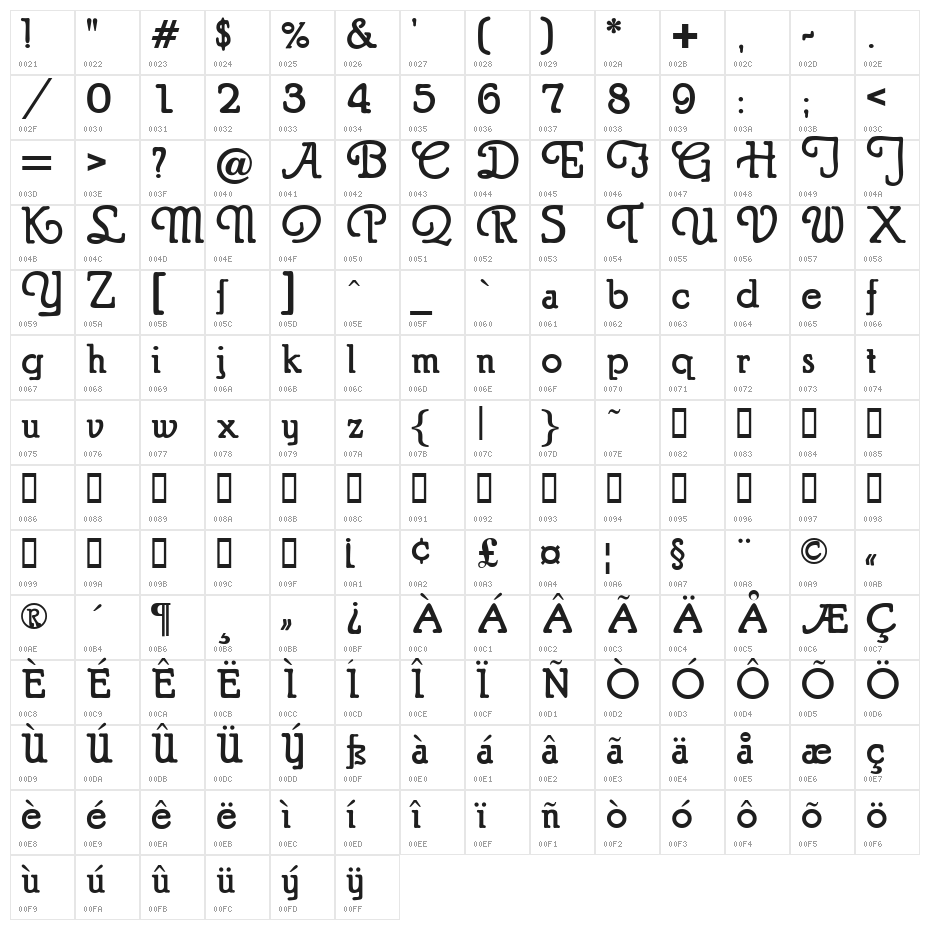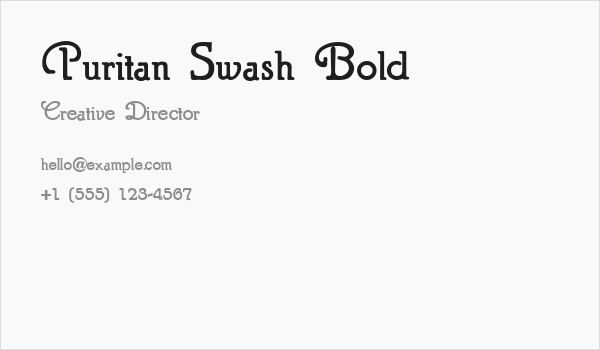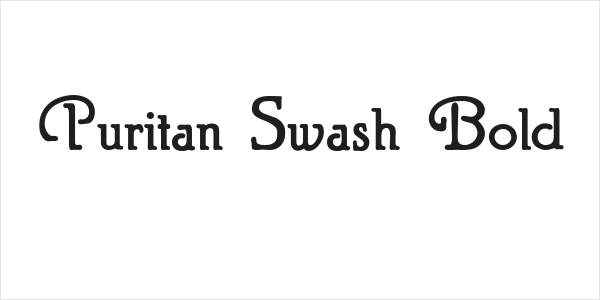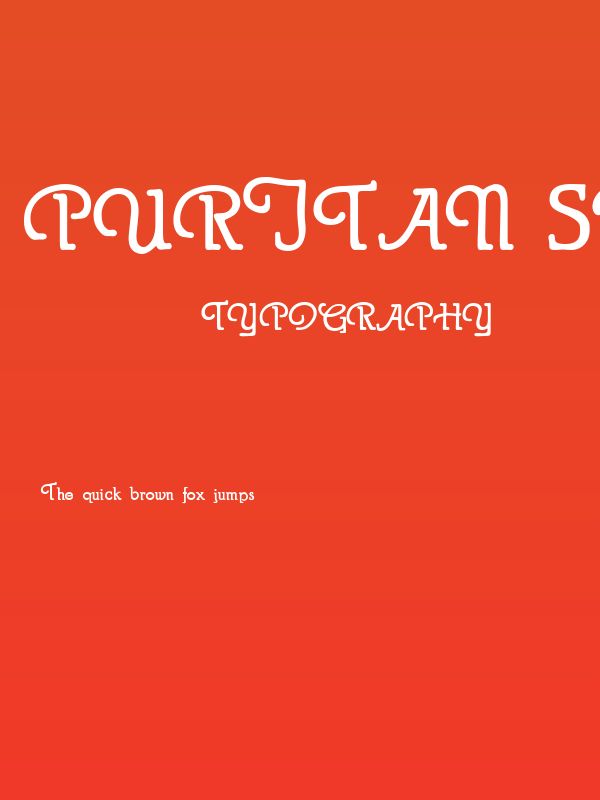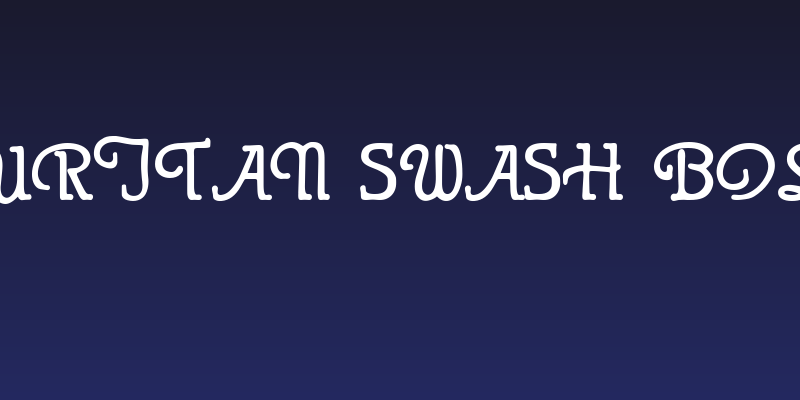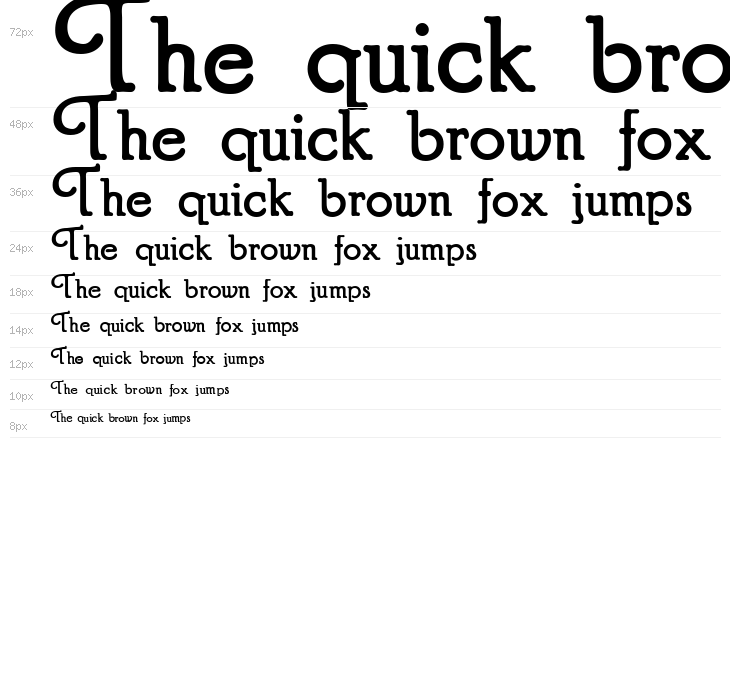
Puritan Swash Bold Font
Puritan Swash Bold Description
This font features a bold and decorative style with swash elements that add a unique flair to each character. The uppercase letters are particularly ornate, with elegant curves and flourishes that give them a distinctive appearance. The lowercase letters maintain a more traditional form but still incorporate subtle decorative touches. The numerals are bold and clear, ensuring readability while maintaining the overall aesthetic. Special characters are designed with the same attention to detail, making them visually cohesive with the rest of the font. This font is well-suited for projects that require a touch of elegance and creativity.
| Proposed Projects | Ideal for invitations, branding, logos, and decorative headlines. |